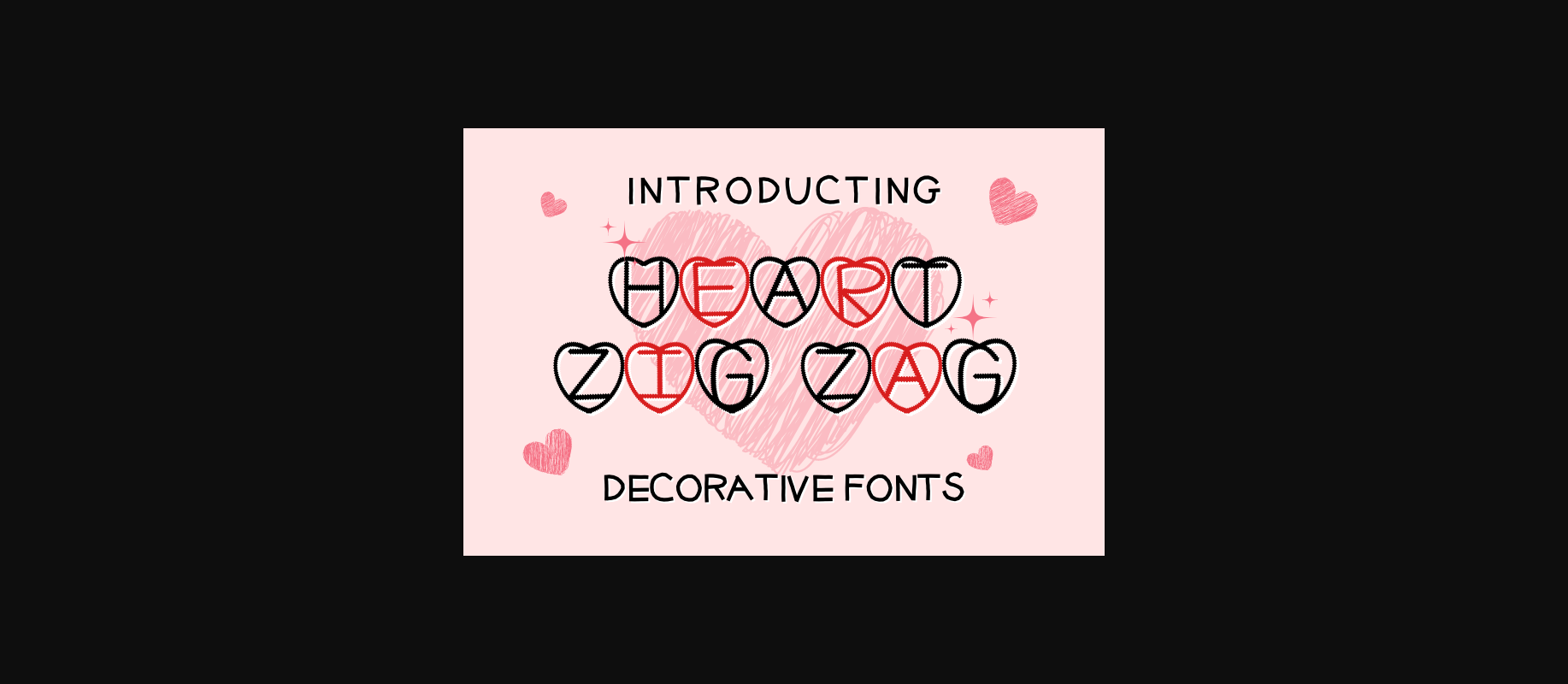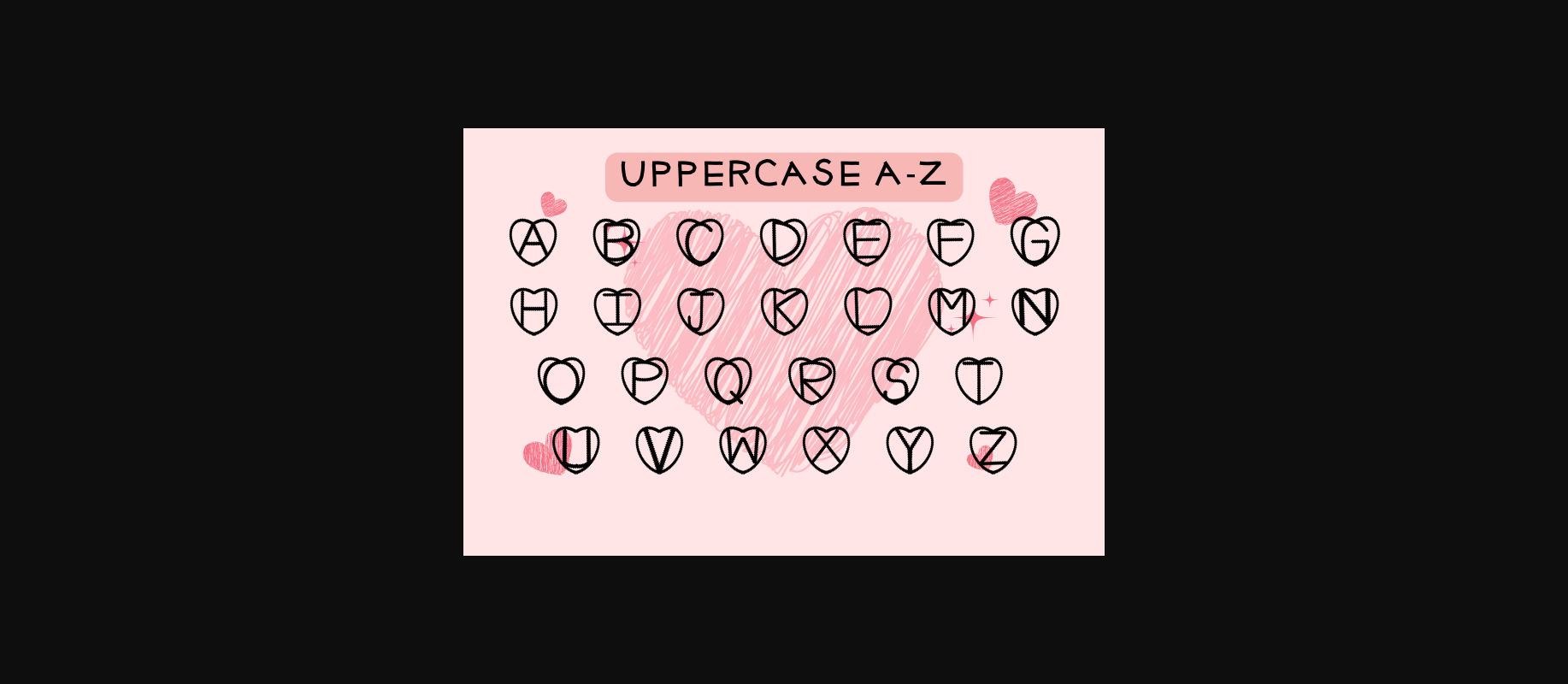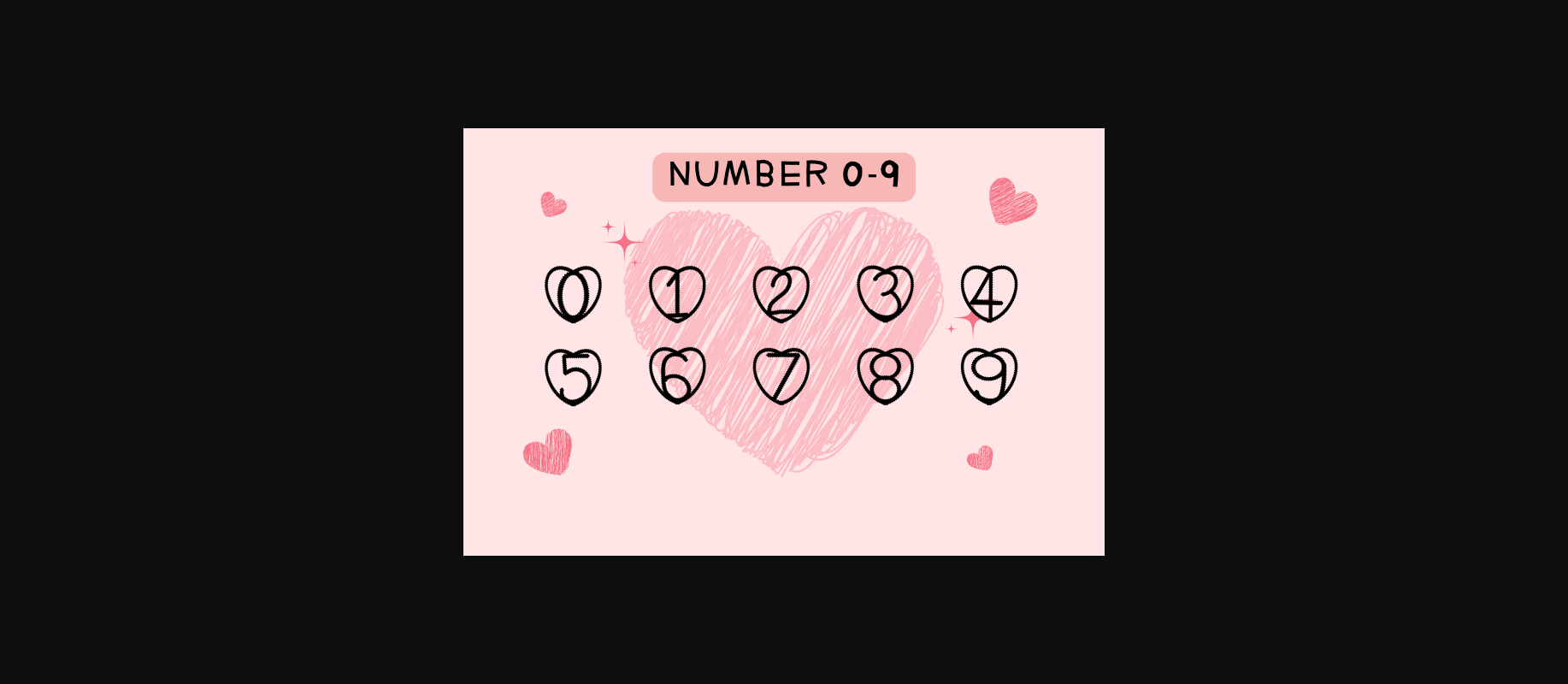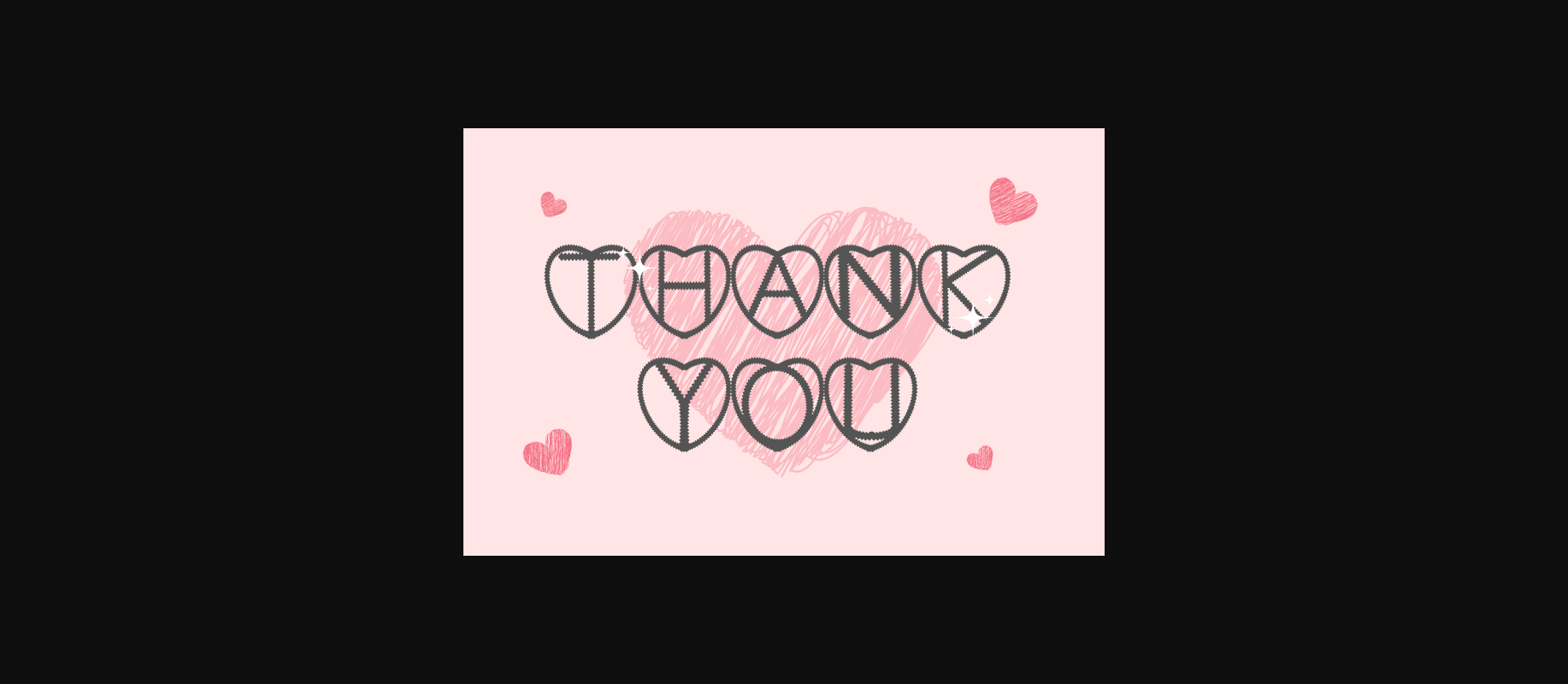
Heart Zig Zag Font
About Heart Zig Zag Font
Heart zig zag is a decorative font that consists of letters surrounded by hearts. You can use this font for your creations like invitations, cards, posters, Valentine’s Day gifts, and more.